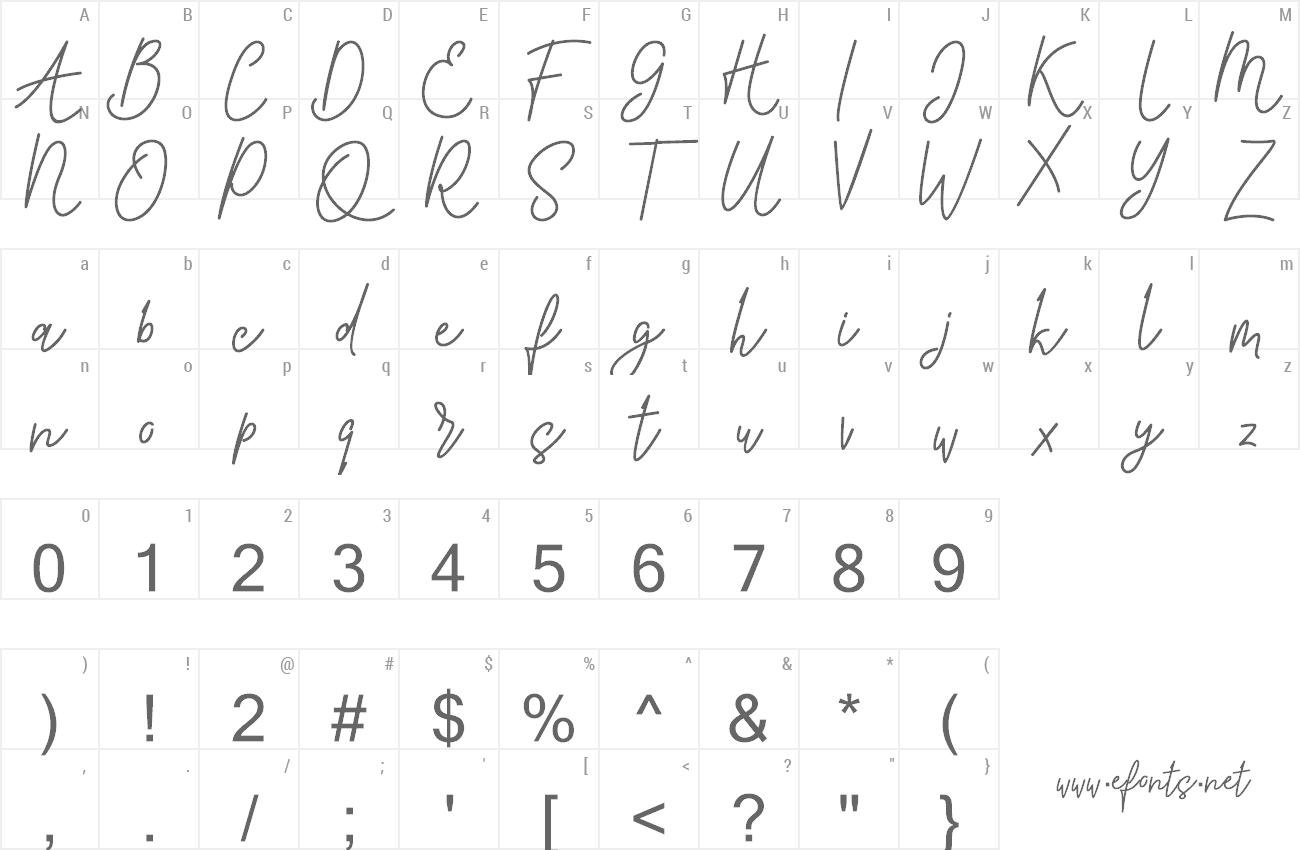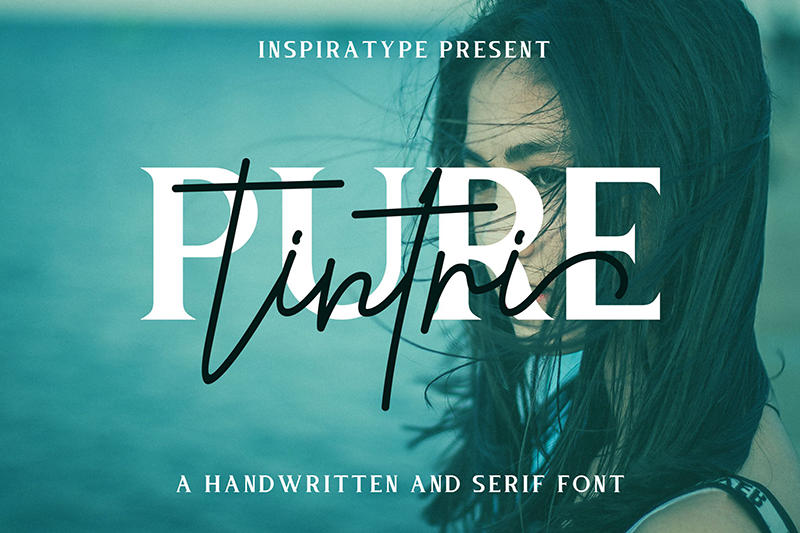
Preview and download Pure Tintri Font. Created by InspiraType in Script Handwritten styles with Free for personal use license.
"Tintri Pure" is a font display is made by hand, inspired by classic posters. comes with uppercase, lowercase, numerals, punctuations and so many variations on each characters include opentype alternates, common ligatures and also additional swash to let you customise your designs. Perfect to use for Logotype, Letterhead, Poster, Apparel Design, Label and etc. |